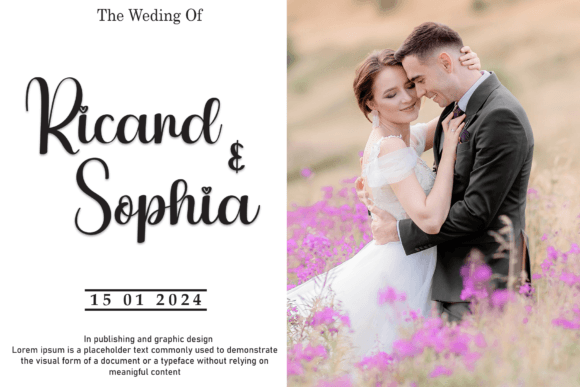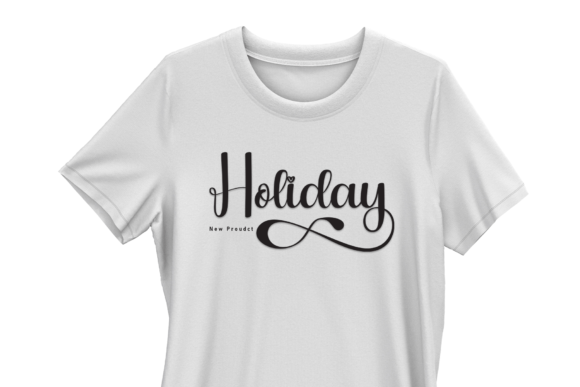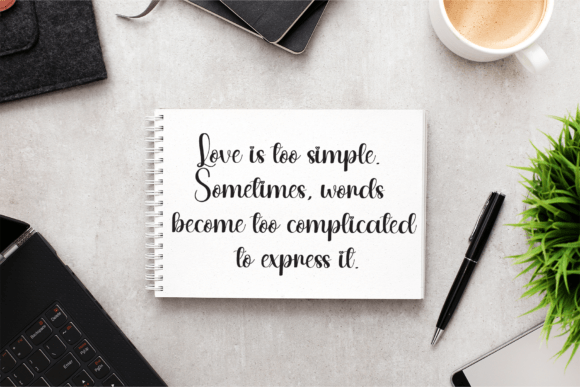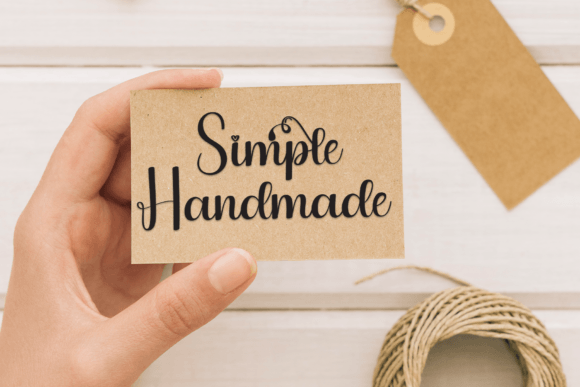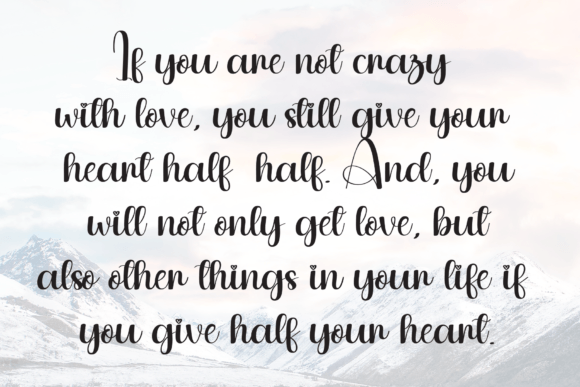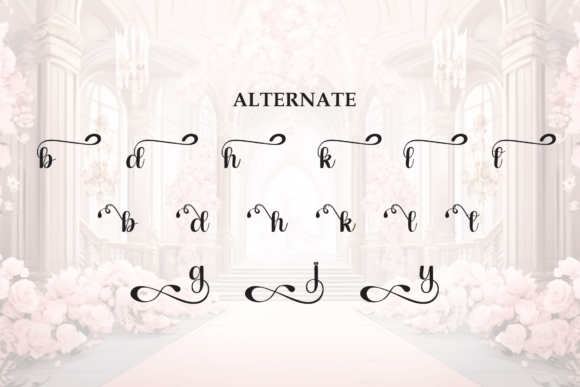
The Sweetest Wedding Invitation Font You’ll Ever Meet
As I sat at my desk, surrounded by scraps of paper, glue, and an endless supply of colorful markers, I knew I was on the verge of something special. I was planning my best friend’s wedding, and I wanted the invitations to be truly unforgettable. That’s when I stumbled upon the perfect font – a charming, handwritten display font that captured the essence of the wedding’s whimsical charm.
Meet the Barbie Wedding Font, a sweet and friendly handwritten display font that’s perfect for writing wedding invitations, cards, and any other design that needs a touch of fun and playfulness. This font is a treasure trove for designers, offering a unique and customizable way to add a personal touch to their projects.
Whether you’re a seasoned designer or a DIY enthusiast, the Barbie Wedding Font is sure to bring a smile to your face and inspire your creativity. With its cute and friendly aesthetic, it’s the perfect addition to any wedding design, making it a valuable tool for anyone looking to add a little extra magic to their work.
Barbie Wedding Font Key Features
• Font Style: Script, elegant and cursive, perfect for wedding invitations, decorations, and other special occasions.
• Unique Characteristics: Features a unique, flowing design with intricate details and subtle flourishes, giving it a touch of whimsy and romance.
Barbie Wedding Font Review
The Barbie Wedding Font is a delightful, whimsical font that screams fairytale romance. ✨ It’s perfect for adding a touch of elegance and playfulness to your wedding designs, making it ideal for DIY brides or wedding planners looking for a unique twist.
• ✨ Unique and feminine design that adds a touch of magic to your wedding stationery
• ✨ Versatile font that can be used for various wedding elements, including invitations, signs, and even cake toppers
• ⚠️ Limited character set, which may not be suitable for longer wedding texts
• ⚠️ Not ideal for more formal or traditional wedding designs, as it may come across as too playful
Overall, the Barbie Wedding Font is a charming addition to any wedding design. While it may have some limitations, its unique charm and versatility make it a great choice for those looking to add a touch of whimsy to their special day.
Use the “Barbie Wedding Font” in conjunction with pastel colors and floral patterns for a whimsical and romantic look.
Experiment with different font sizes and colors to create a unique and eye-catching design.
The “Barbie Wedding Font” is perfect for:
Wedding planning and organization materials
Wedding-themed party decorations and accessories
Alternatives to “Barbie Wedding Font” for Designers
Great Vibes is a beautiful, cursive script font perfect for creating elegant and whimsical designs. It’s ideal for wedding invitations, save-the-dates, and other wedding-related materials that require a touch of romance and sophistication. In comparison to Barbie Wedding Font, Great Vibes has a more refined and sophisticated look, making it suitable for a wider range of wedding themes and styles.
Alex Brush is a elegant, handwritten font that’s perfect for creating delicate and feminine designs. It’s ideal for wedding invitations, stationery, and other wedding-related materials that require a touch of whimsy and romance. Compared to Barbie Wedding Font, Alex Brush has a more polished and refined look, making it suitable for a more traditional and classic wedding theme.